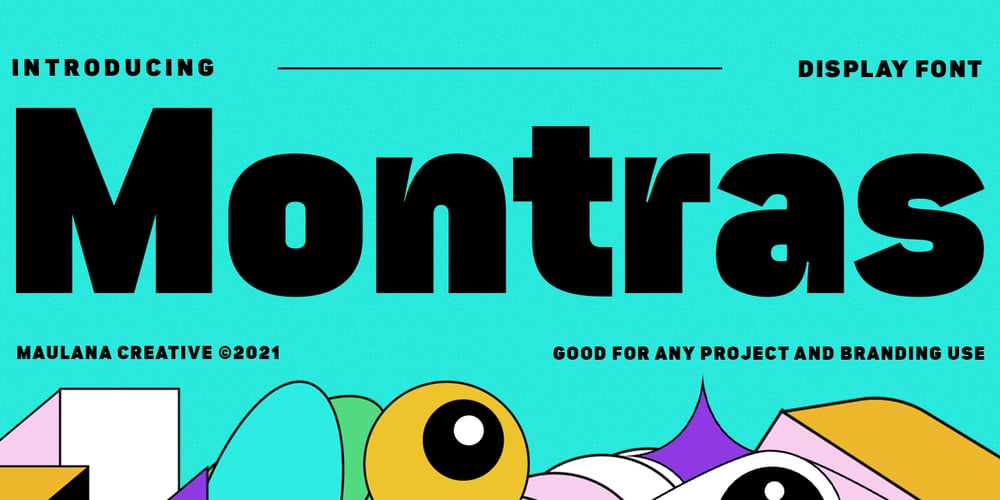
Montras Font Family was designed by Gilang Maulana and published by Maulana Creative. Montras contains 1 styles and family package options. Montras is a modern sans serif display font. With strong bold stroke, fun character with some of ligatures. To give you an extra creative work. Montras font support multilingual more than 100+ language. This font is good for logo design, Social media, Movie Titles, Books Titles, a short text even a long text letter and good for your secondary text font with script or signature typeface. Make a stunning work with Montras font. Cheers, MaulanaCreative